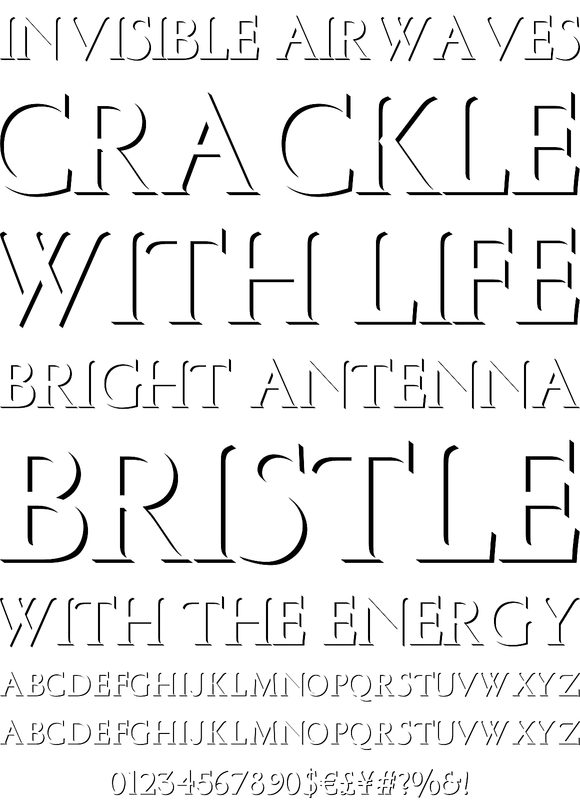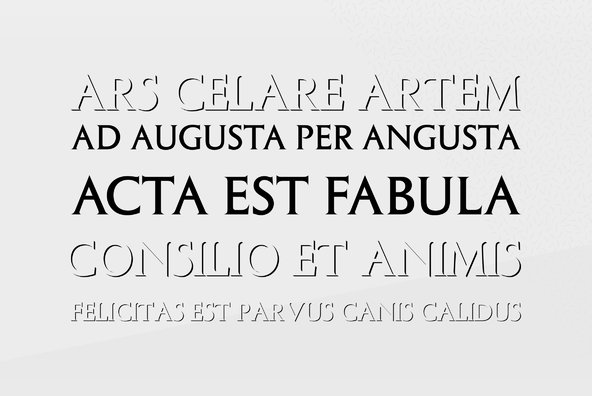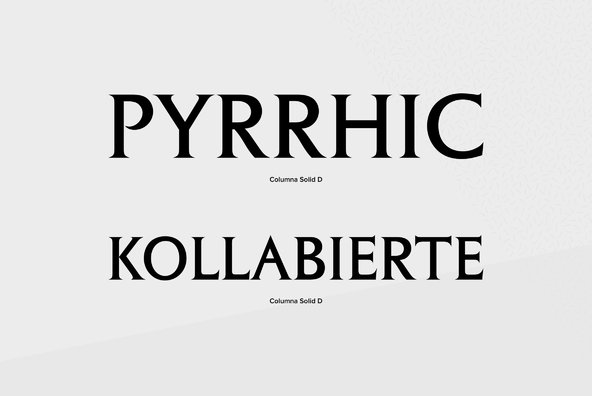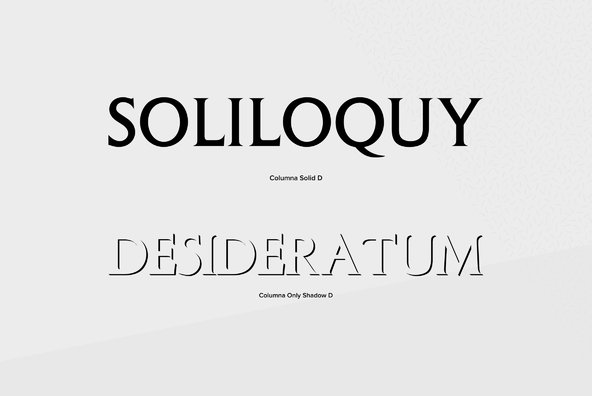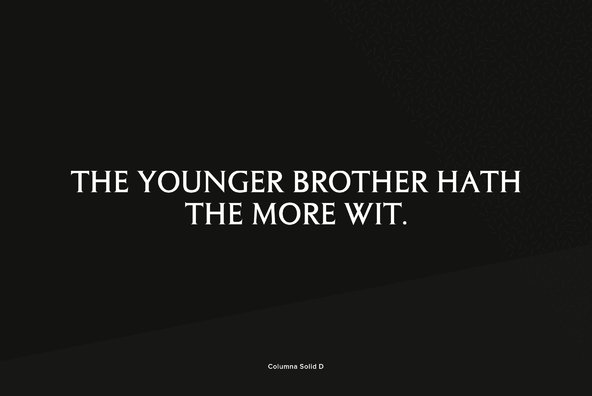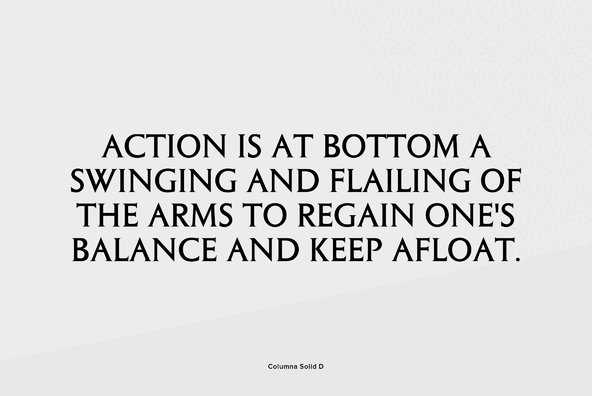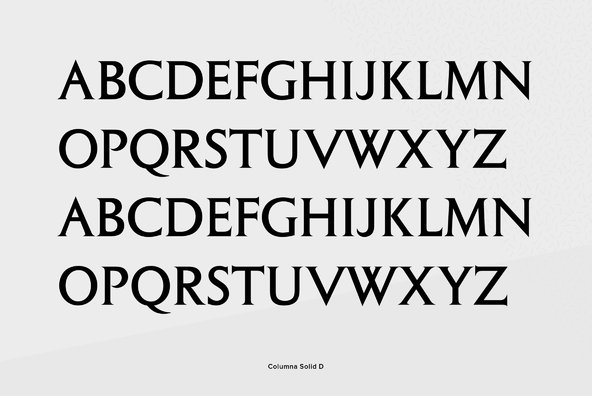
Designed by Max Caflisch in 1952 for the Bauersche Giesserei Type Foundry, Columna is a sharp serif design released by URW. Contains language support for West, East, Turkish, Baltic, and Romanian.